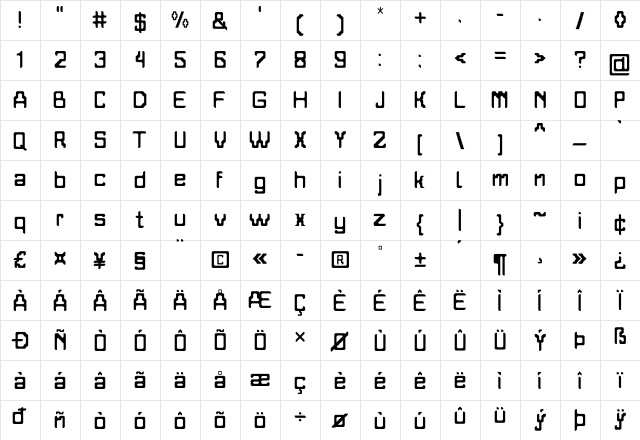
Amerggedon Regular
| Foundry | KongFont |
| Designer | KongFont |
Design Context for Amerggedon Typeface
Amerggedon offers clean, dependable letterforms without strong stylistic allegiance, making it a practical choice for designers who need flexibility.